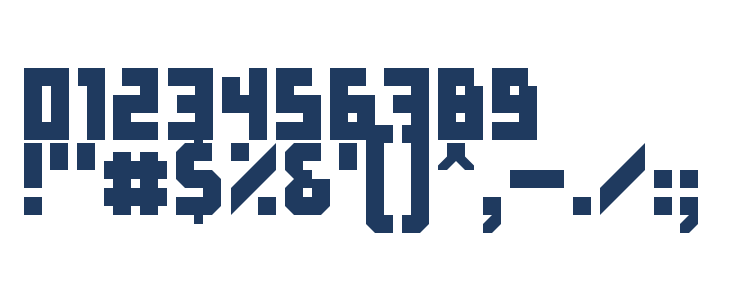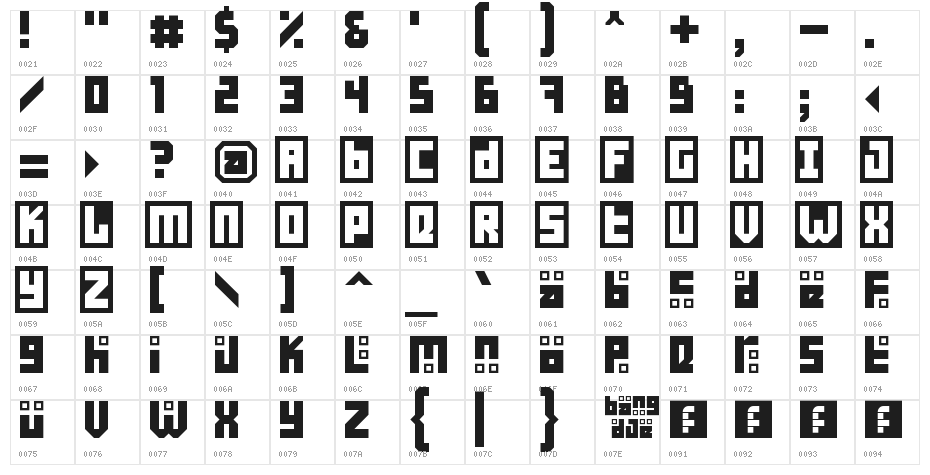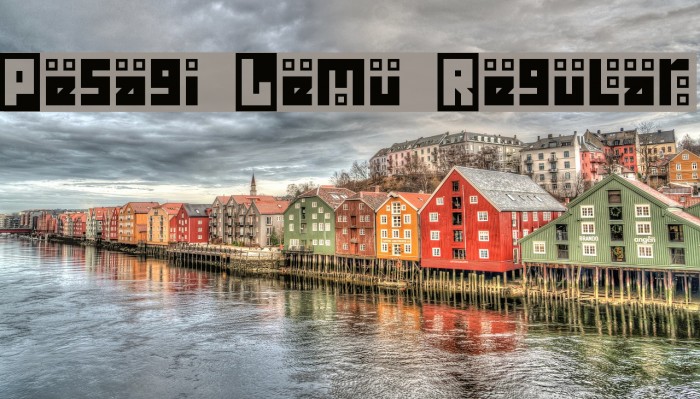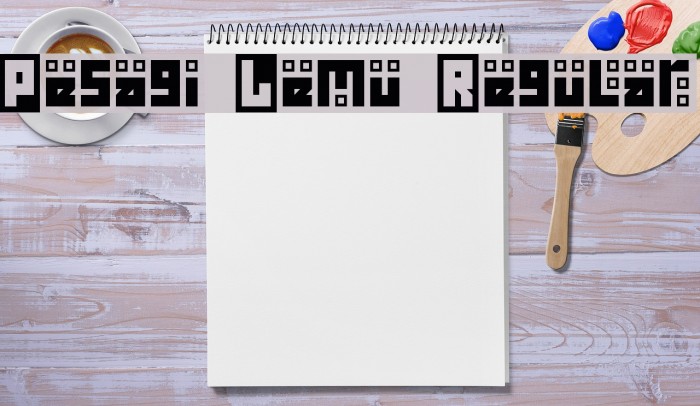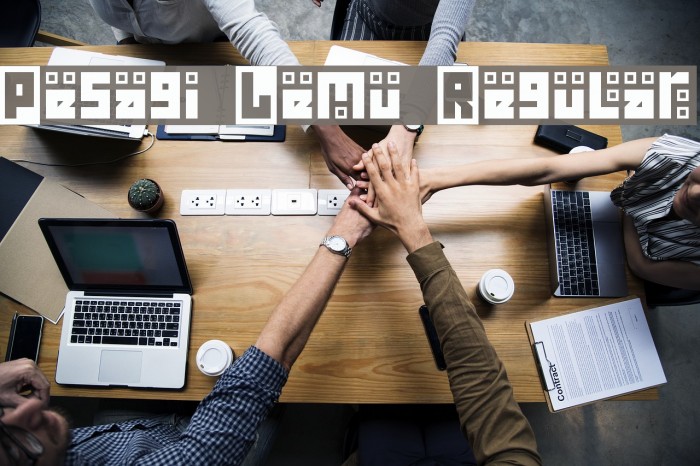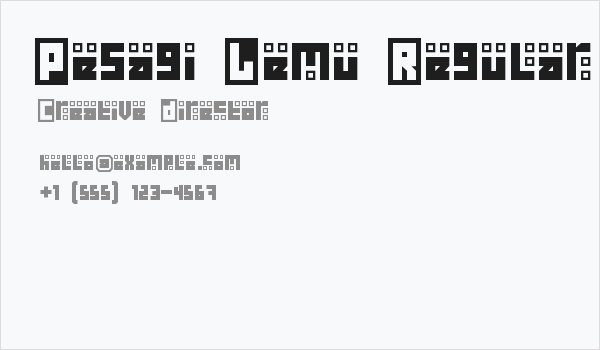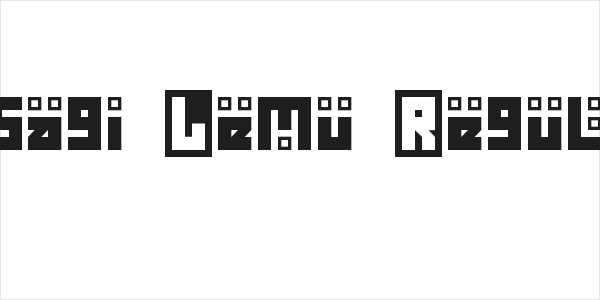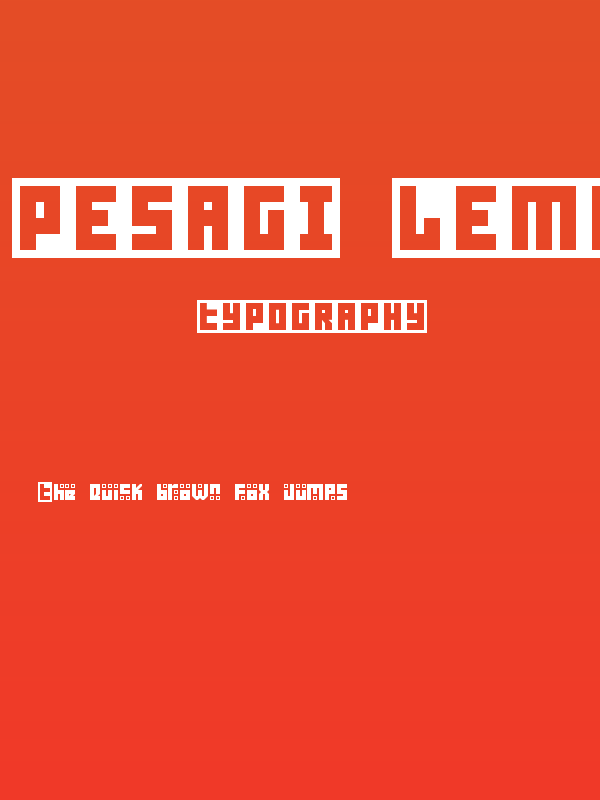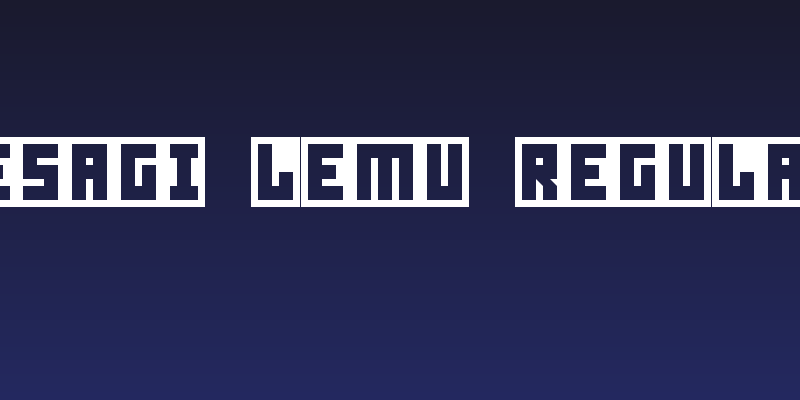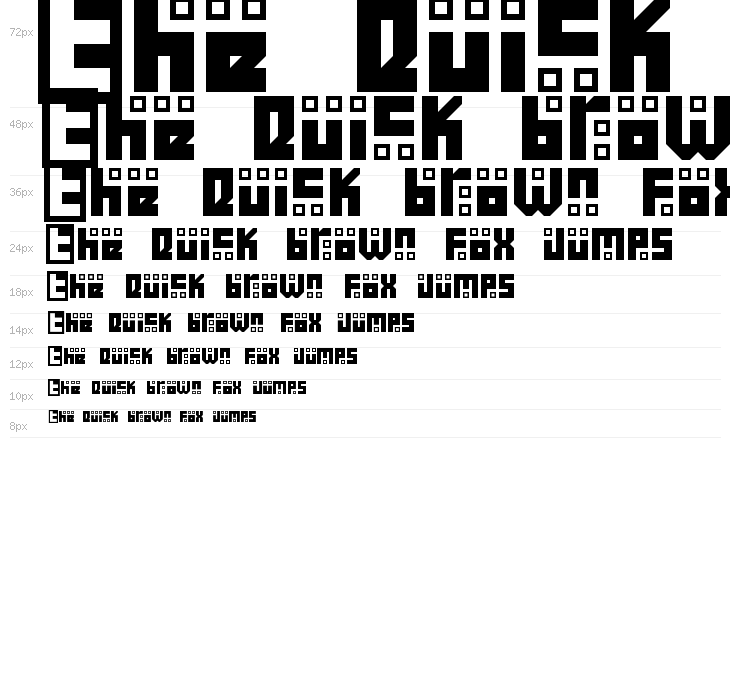
Pesagi Lemu Regular Font
Pesagi Lemu Regular Description
This font features a bold, geometric design with a strong emphasis on rectangular shapes and sharp angles. Each character is enclosed within a block-like structure, giving it a distinct, modern appearance. The uppercase and lowercase letters share a similar style, with consistent height and width, creating a uniform look. The numerals and special characters follow the same design principles, ensuring cohesion across all elements. The font's unique style makes it stand out, with a futuristic and digital feel that is both eye-catching and memorable.